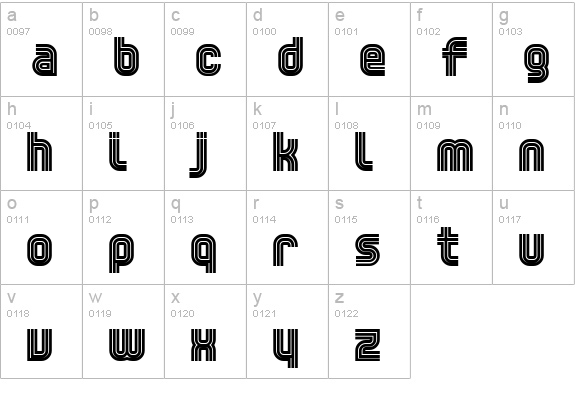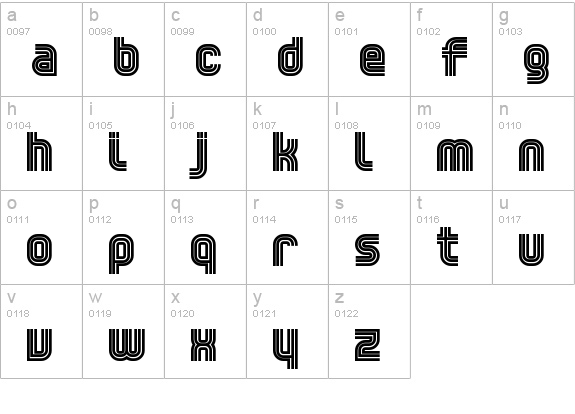
Trisect ExtraBold is an extra-heavy, attention-grabbing variant in the Trisect typeface family \xE2\x80\x94 well suited to high-impact headlines, posters, and bold branding.
Introducing Trisect ExtraBold Font, a powerful and visually stunning typeface that exudes strength and confidence. This font is perfect for those seeking to make a bold statement with their designs. Trisect ExtraBold features striking and sharp lines that demand attention, while its generous weight adds an extra level of impact. With its unique combination of contemporary and geometric elements, Trisect ExtraBold stands out from the crowd and leaves a lasting impression. Whether used for headlines, logos, or branding materials, this font delivers a captivating presence that captures the essence of modernity and sophistication. But what sets Trisect ExtraBold apart from other fonts is its incredible versatility. Despite its commanding appearance, this font remains highly legible even at smaller sizes, making it ideal for various applications. From print to digital, Trisect ExtraBold ensures your message is communicated with clarity and precision. And the best part? Trisect ExtraBold Font is freely available to download at FontsMarket.com. This means that you can unleash your creativity without any restrictions or limitations. Say goodbye to budget constraints and hello to endless design possibilities. With Trisect ExtraBold, you have the freedom to explore and experiment, bringing your vision to life like never before. So why wait? Download Trisect ExtraBold Font today and embark on a journey of artistic expression. Let the power of this font elevate your designs and captivate your audience. Be daring, be distinctive, and be unforgettable with Trisect ExtraBold Font.